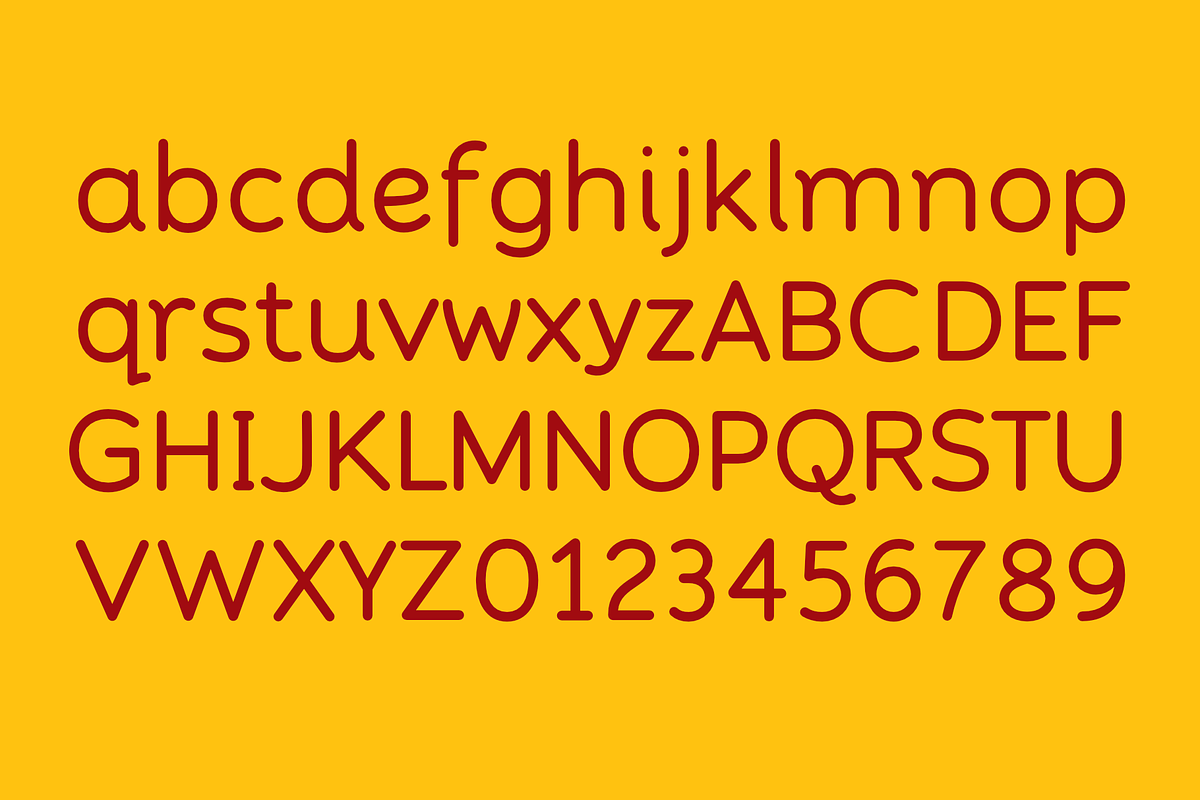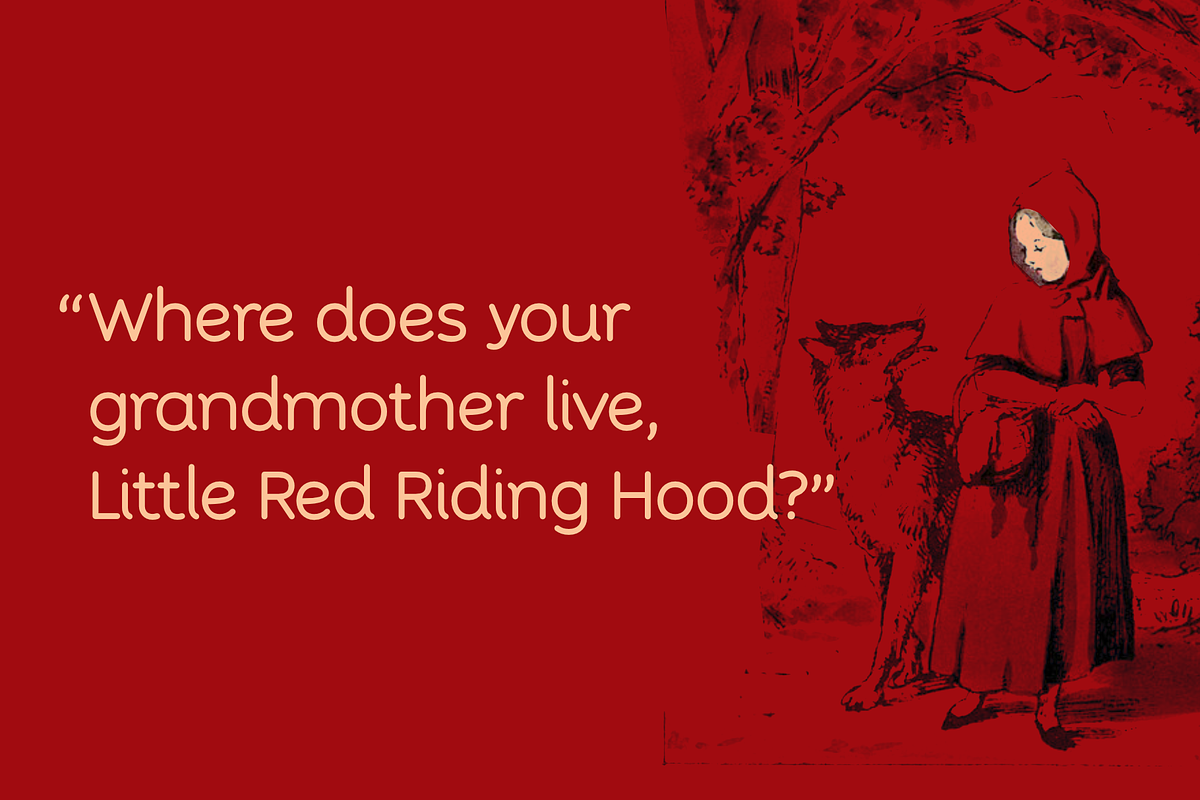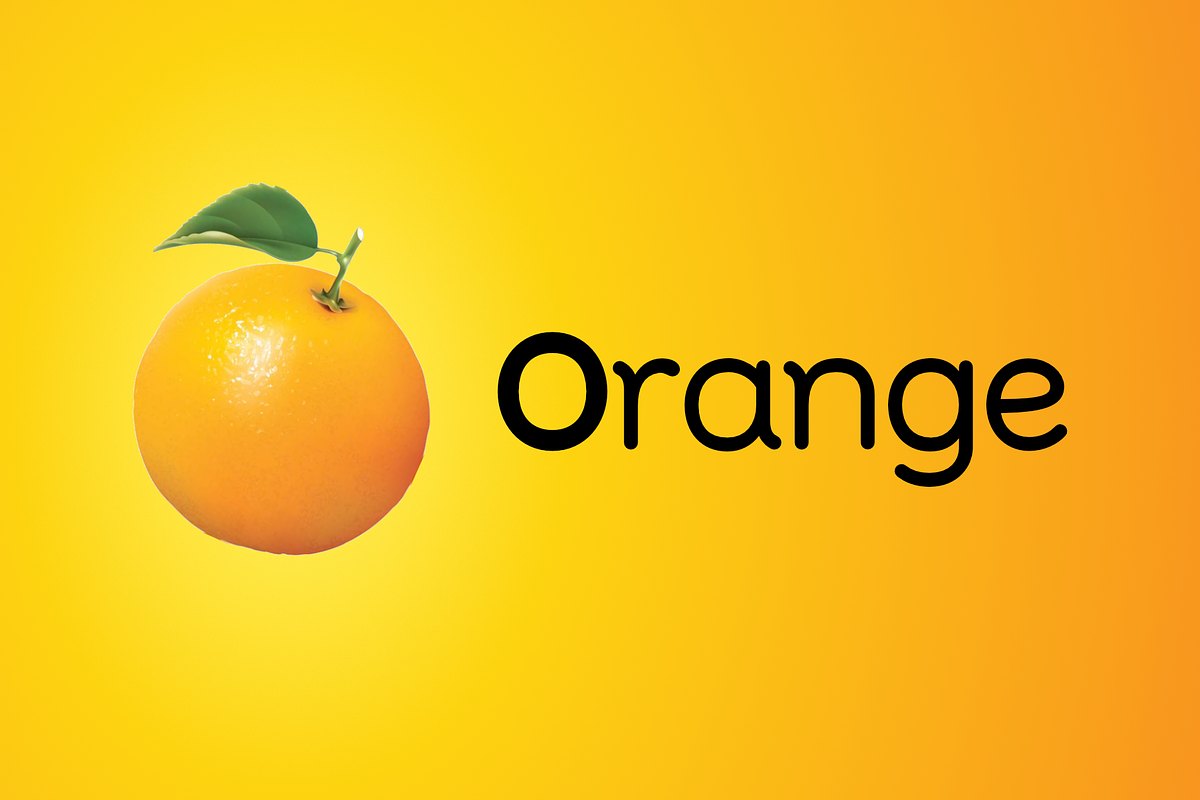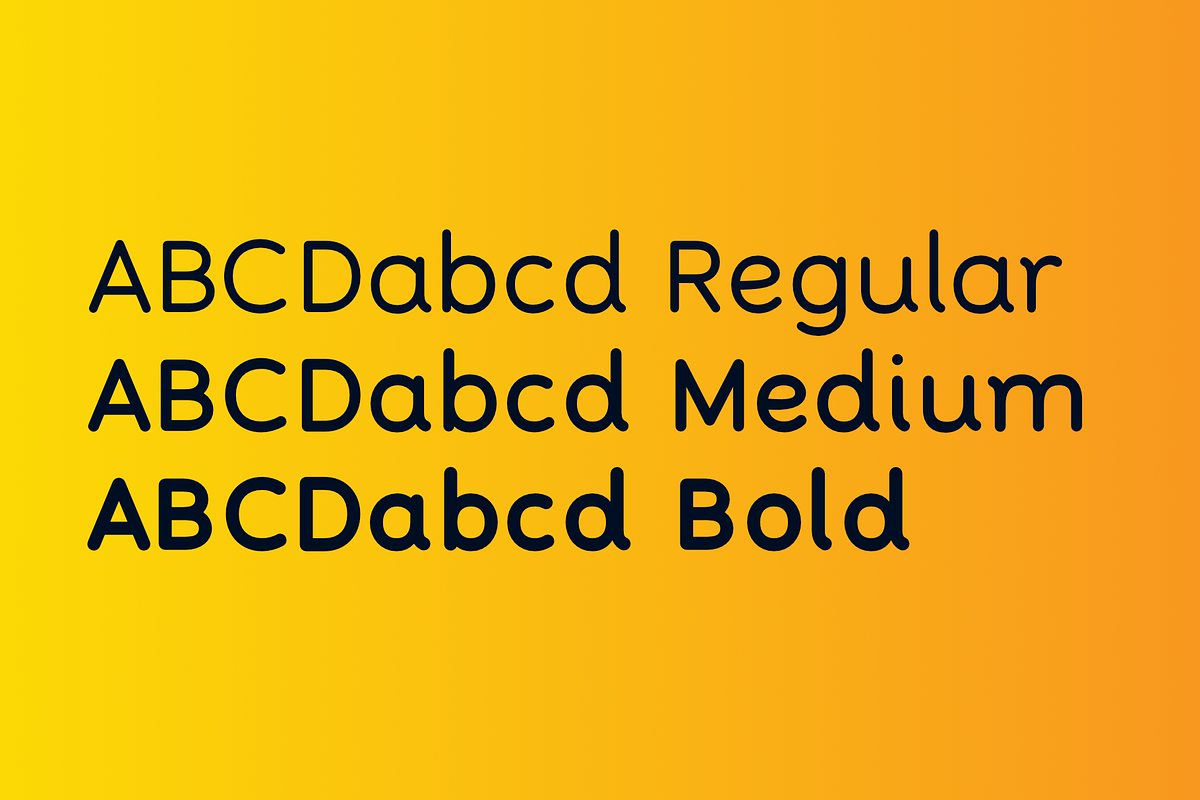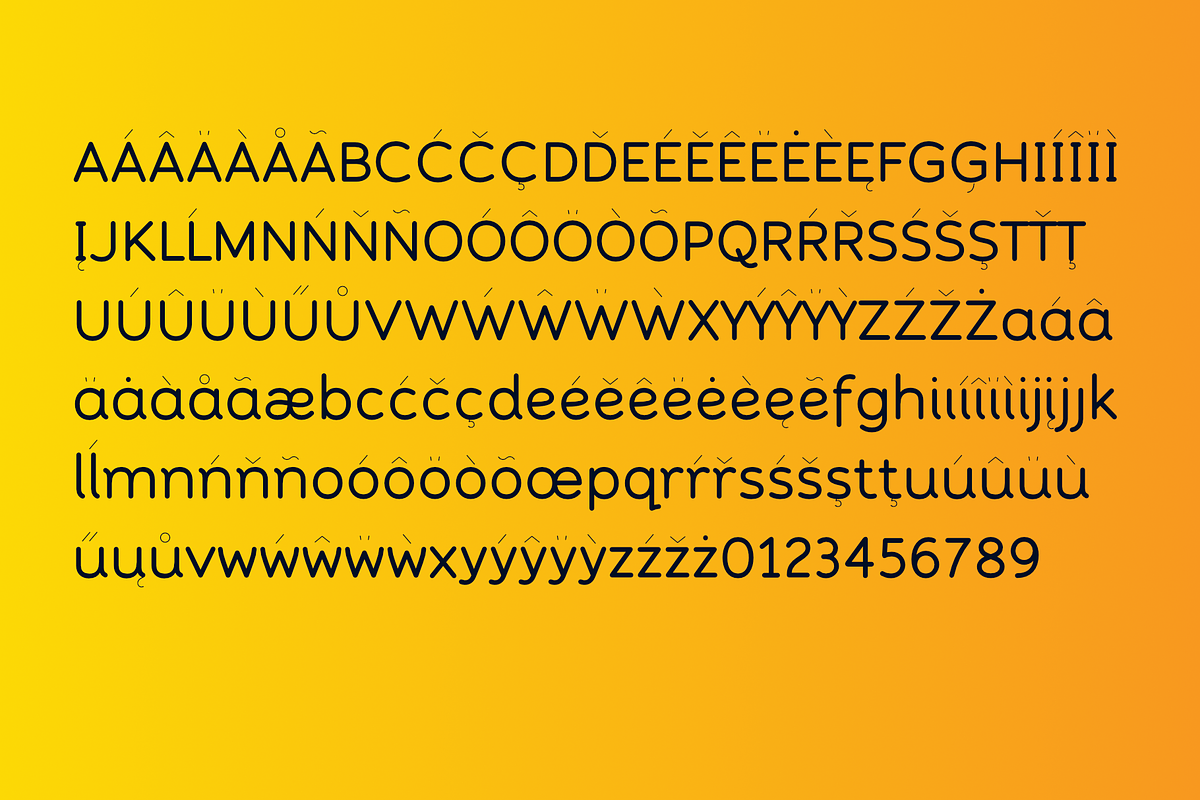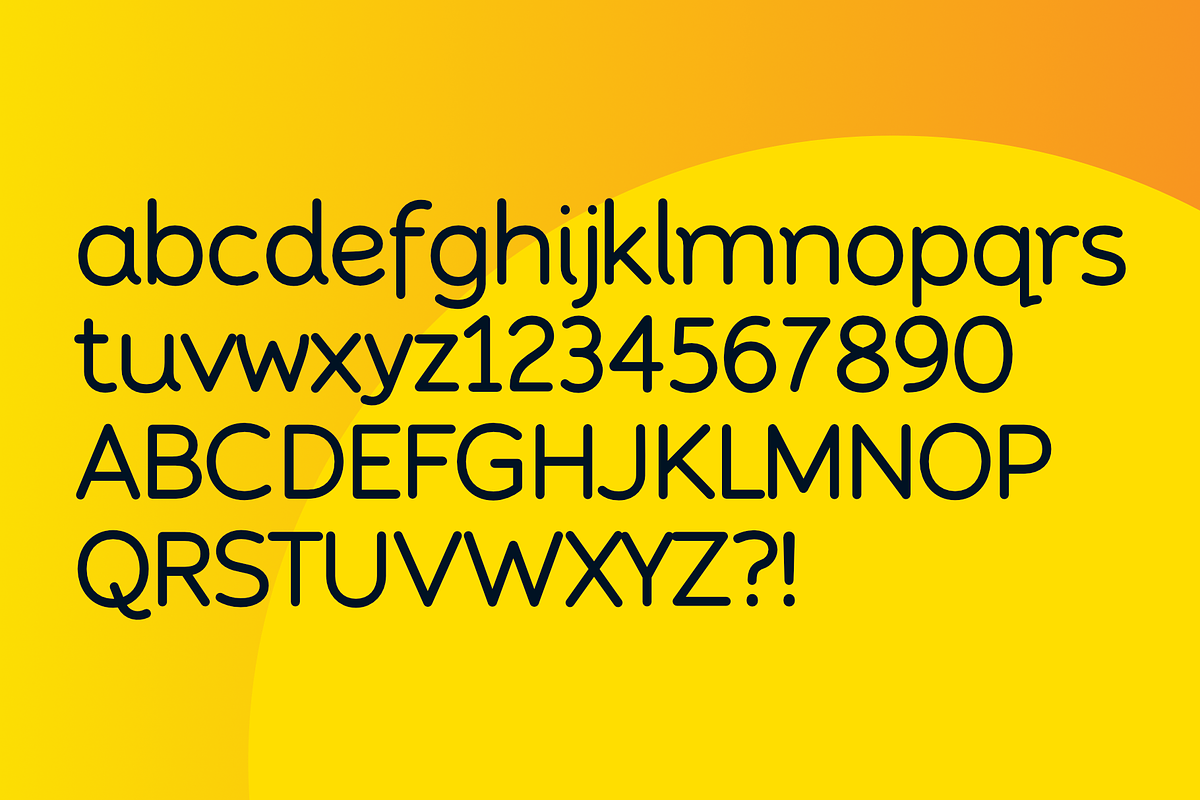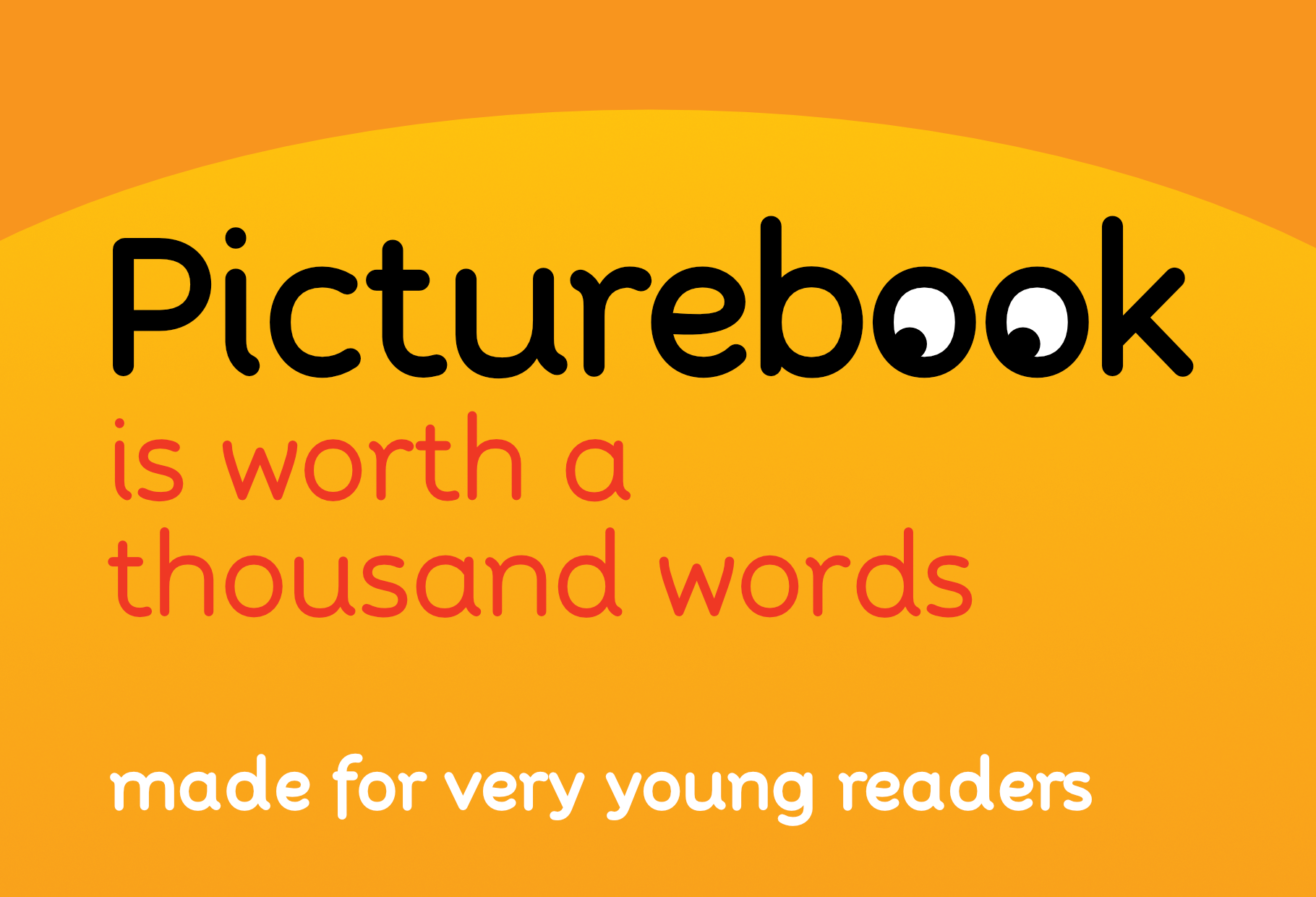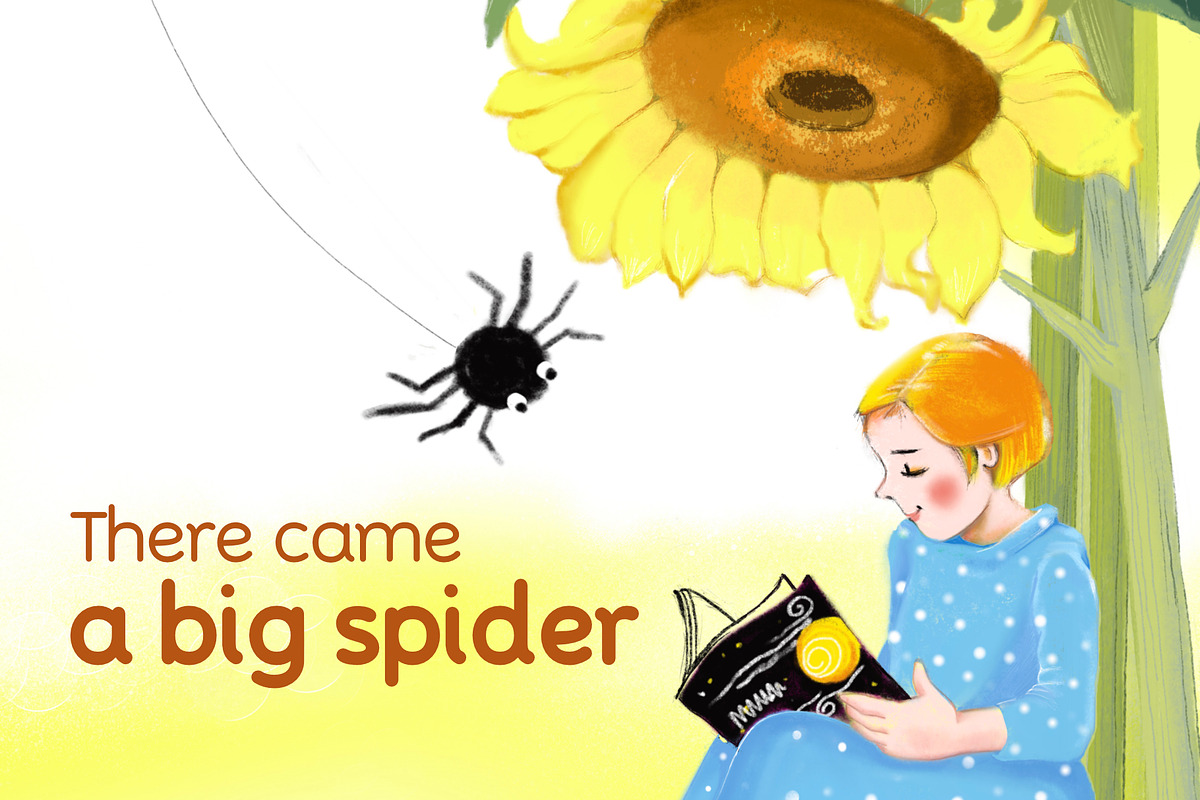
Picturebook typeface family
About this font family Picturebook was made for very young readers and is ideal for creating simple words and sentences in picture books. Produced in three weights with very clear, distinct character shapes to aid early reading and learning.
- 3 weights; Regular, Medium and Bold
- Multi language support